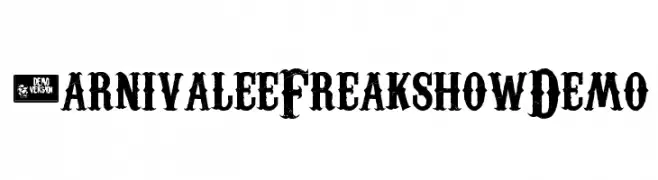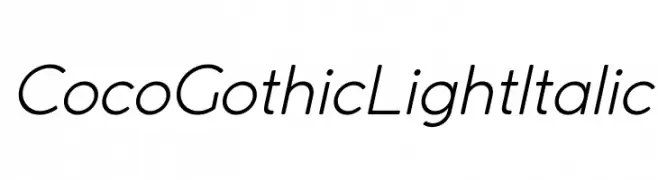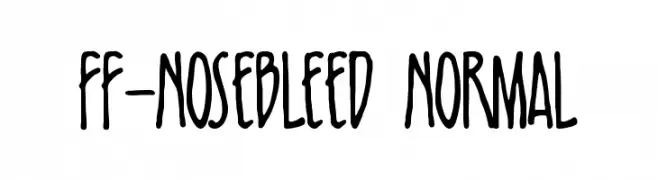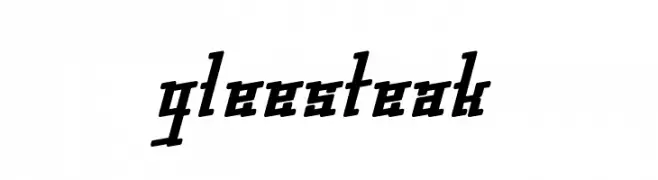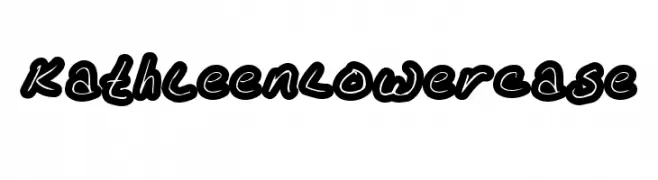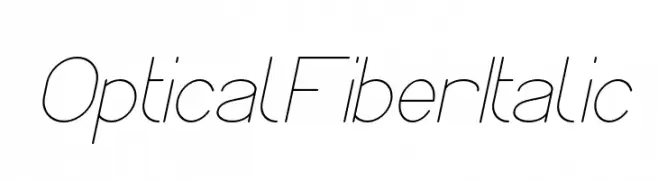
A sleek, modern, light italic sans-serif font with elegant slant.
A modern, thin, and compressed font with a sleek, vertical design.
A sleek, modern italic font with thin, consistent strokes and a minimalist aesthetic.
A tall, narrow font with a modern and sleek design.
A bold, angular, italicized font with a modern and dynamic style.
A playful, handwritten font with quirky, uneven strokes.
A bold, playful handwritten font with a cartoonish style and thick outlines.
A bold, playful font with thick outlines and a cartoonish style.
A sleek, modern sans-serif font with a light, italic style and normal spacing.
A bold, decorative font with a vintage circus flair.